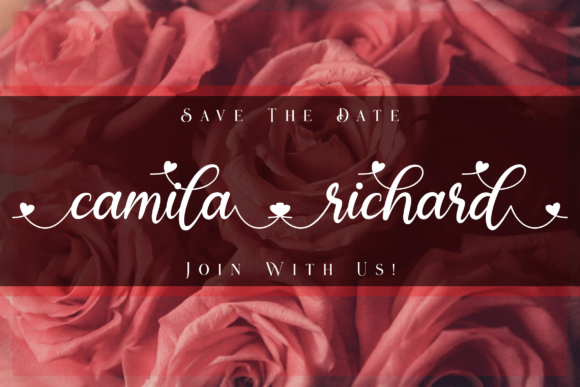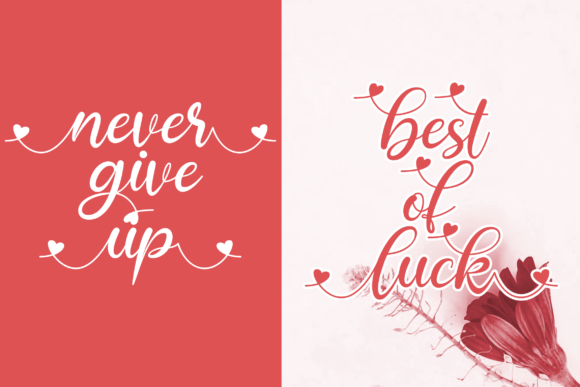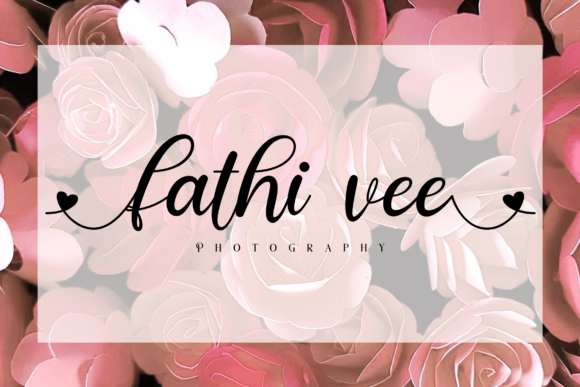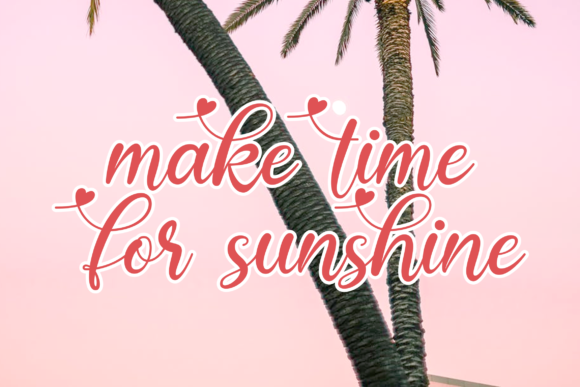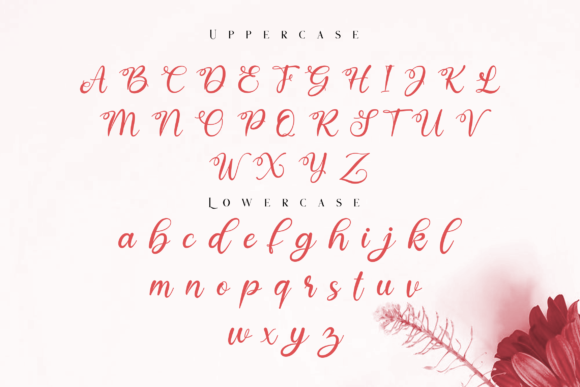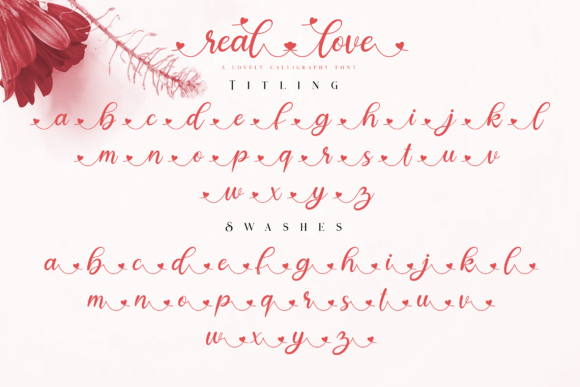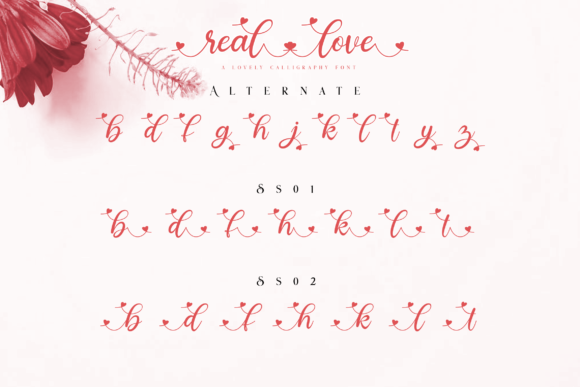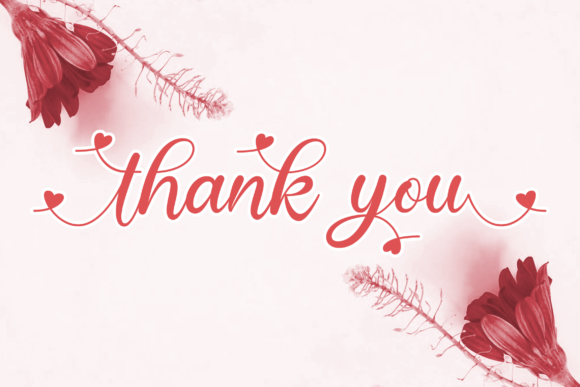
Real Love Font
About Real Love Font
Real love is a sweet, soft hand-lettered handwritten font. The playful rounded characters make it the perfect font for creating stunning designs.